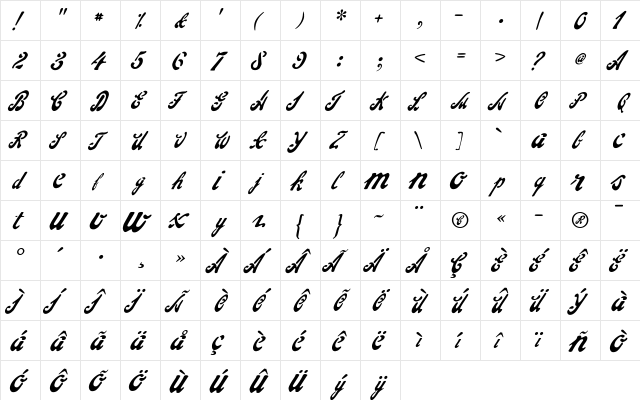
Leucadia Regular Font Preview
Leucadia Regular
Leucadia Regular Font Details
Design Context for Leucadia Typeface
Leucadia is a composed and adaptable typeface that performs quietly and consistently across a wide range of design contexts.